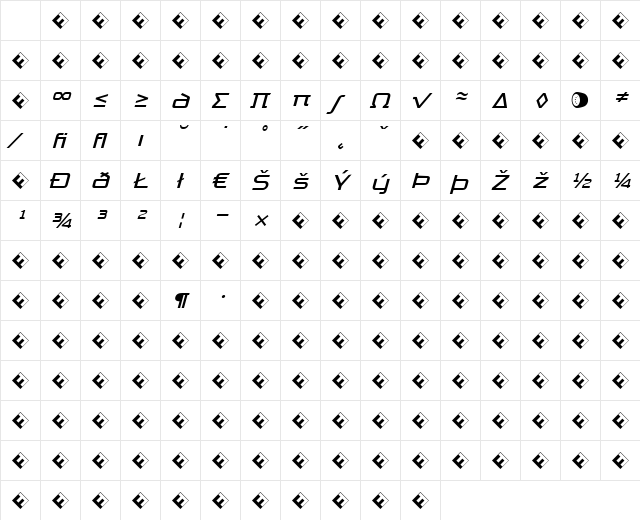
Complete TradeMarker Light Italic glyph index. Displaying only characters natively supported by TradeMarker Light Italic font.
TradeMarker is a composed and adaptable typeface that performs quietly and consistently across a wide range of design contexts. The slanted form adds forward momentum and visual energy. Its slender proportions lend an understated elegance to any composition.